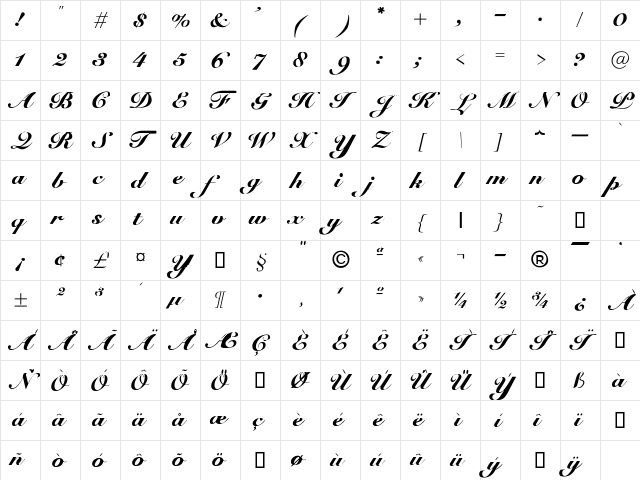
Complete G-Unit Regular glyph index. Displaying only characters natively supported by G-Unit Regular font.
G-Unit is a composed and adaptable typeface that performs quietly and consistently across a wide range of design contexts.